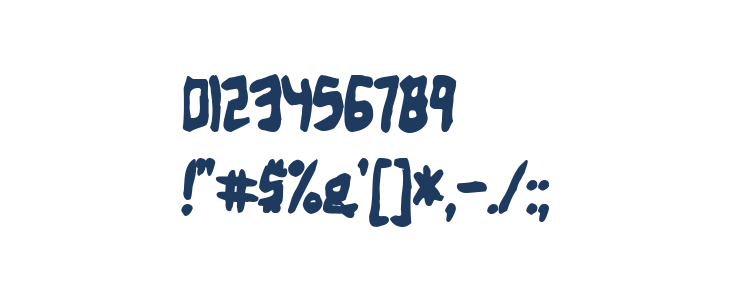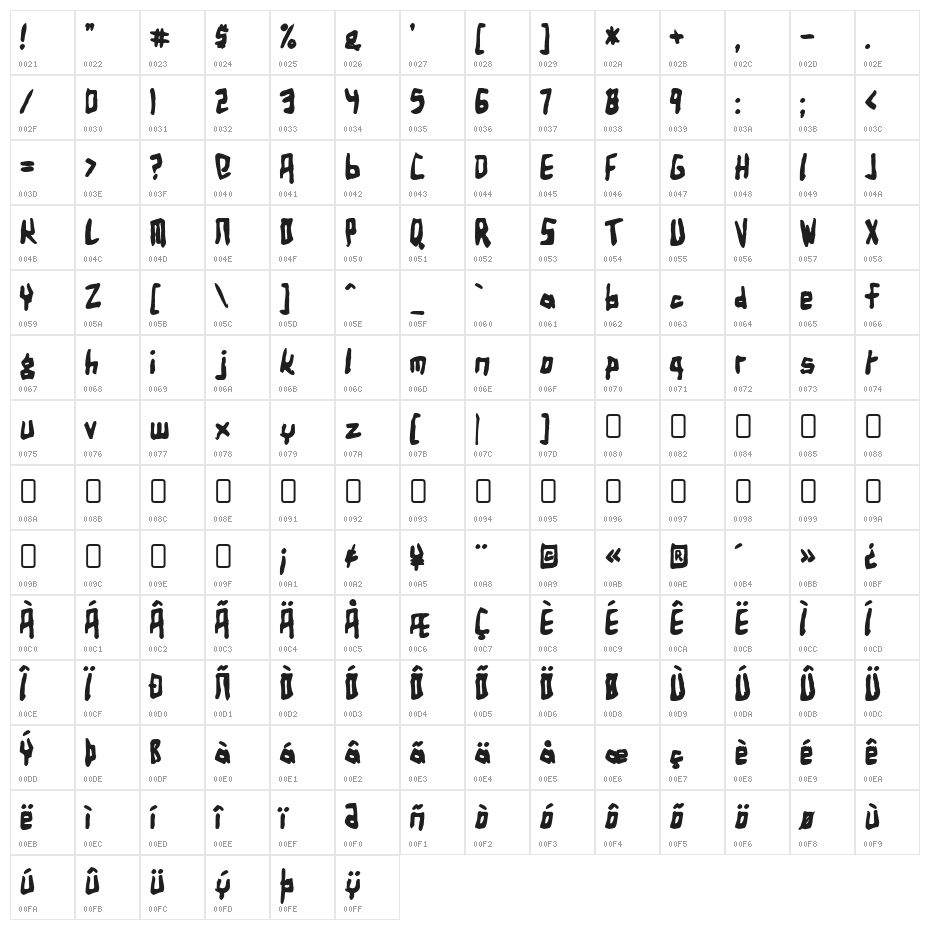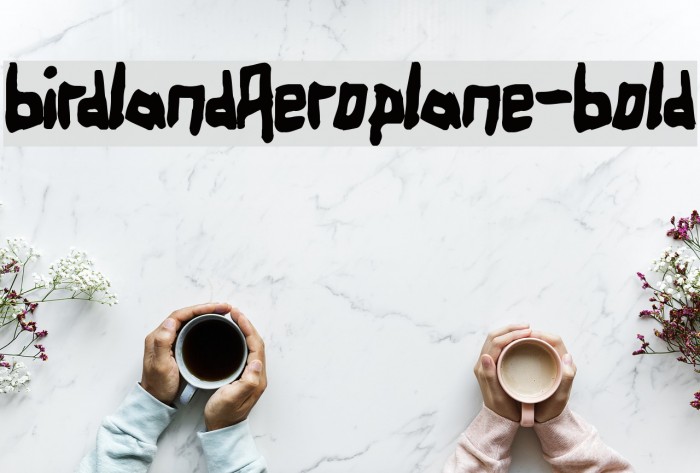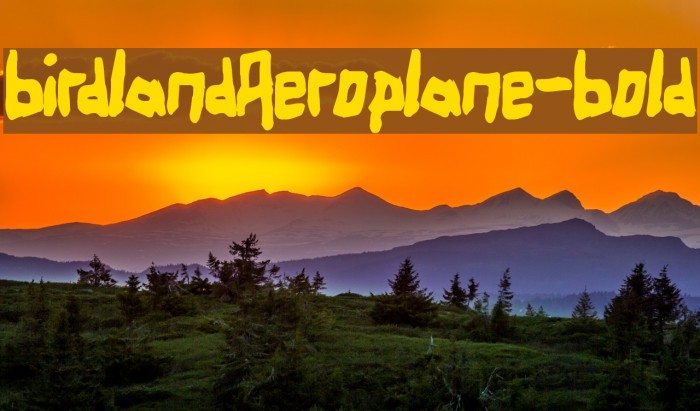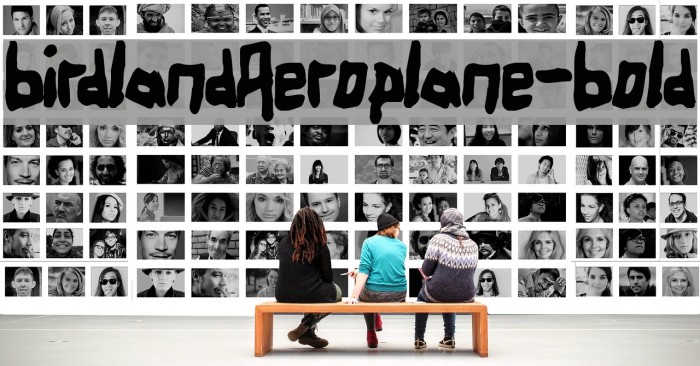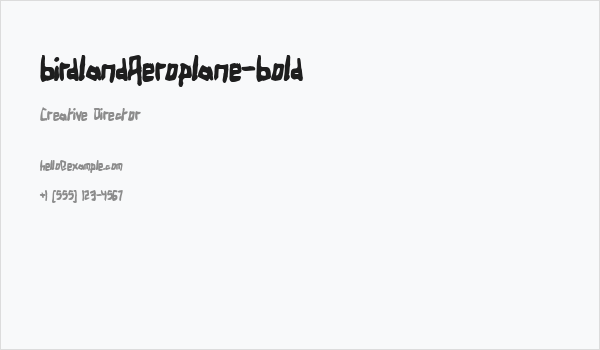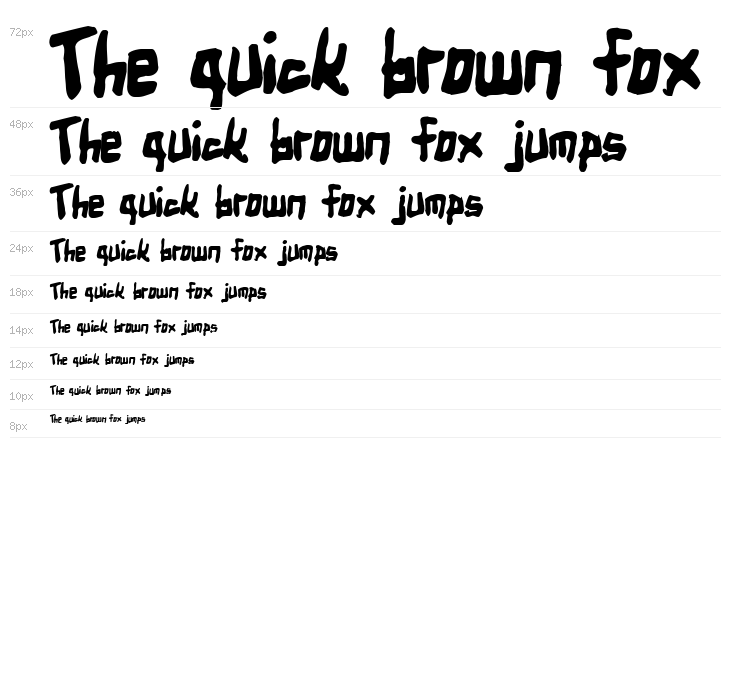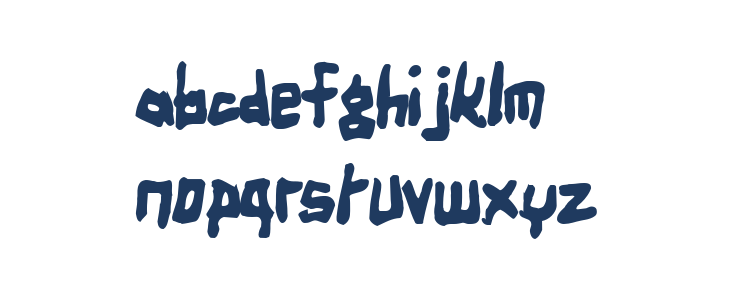
BirdlandAeroplane-Bold Font
This font features a bold and expressive style with a hand-drawn appearance. The characters are irregular and organic, giving a playful and artistic vibe. The uppercase and lowercase letters maintain a consistent weight, with thick strokes and rounded edges. The numbers and special characters follow the same bold and dynamic design, making them stand out. This font's unique style is perfect for creative projects that require a touch of individuality and flair.
Proposed ProjectsIdeal for posters, album covers, artistic branding, and creative social media graphics.